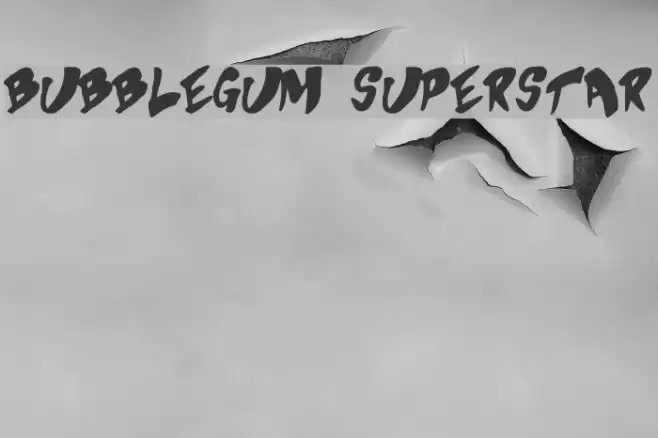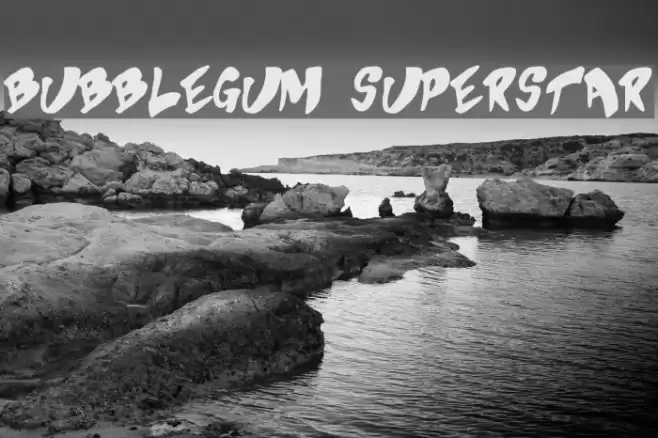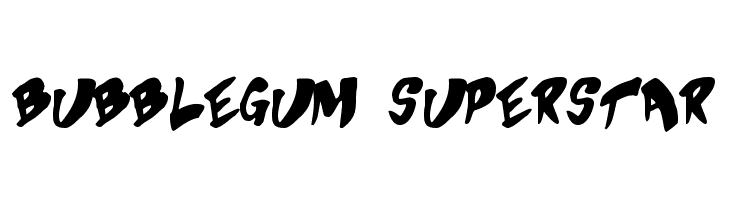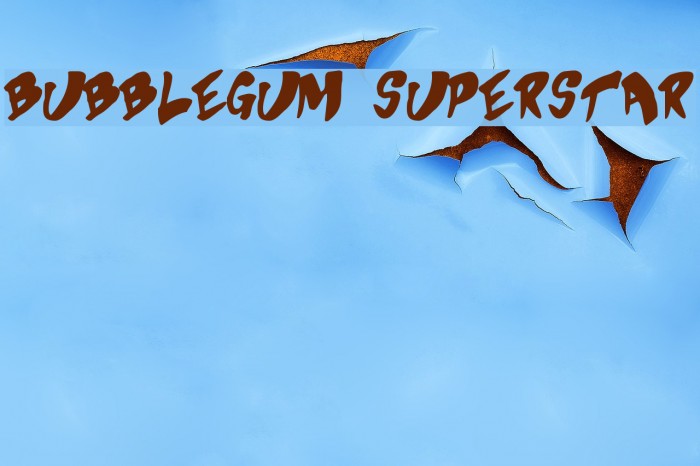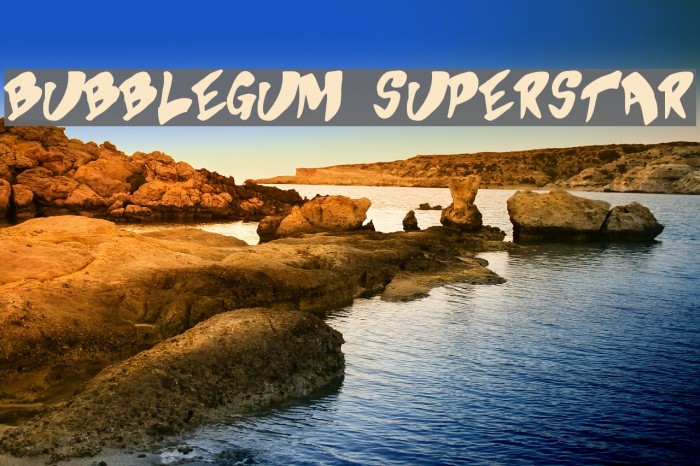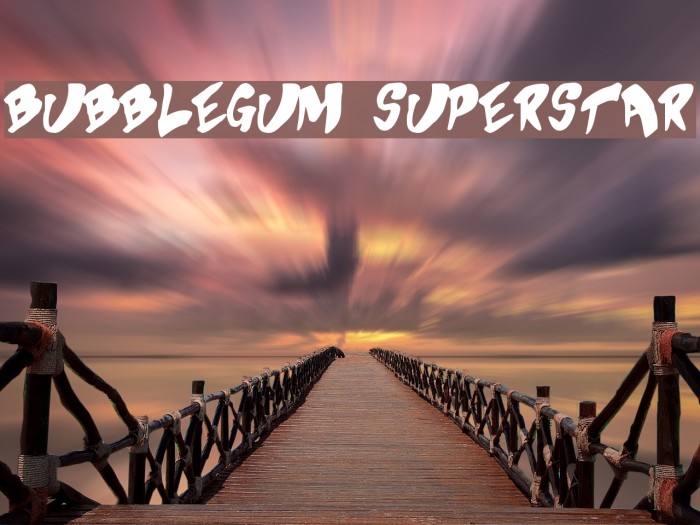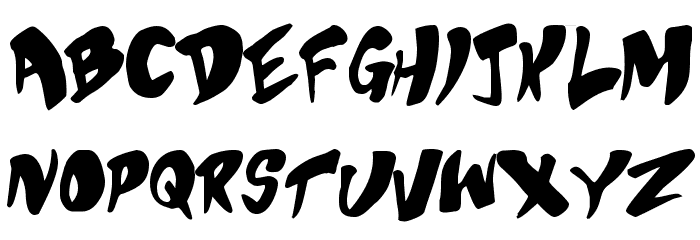
Bubblegum Superstar Font
Bubblegum Superstar Description
This font features a bold and dynamic style with a playful and energetic appearance. The letters are thick and slightly slanted, giving them a sense of movement and vibrancy. The strokes are uneven, adding a hand-drawn, casual feel that is both approachable and lively. The uppercase and lowercase letters maintain a consistent flow, while the overall design is reminiscent of graffiti or street art, making it ideal for projects that require a youthful and rebellious touch. The font's boldness ensures it stands out, making it suitable for eye-catching headlines and creative designs.
A bold, dynamic font with a playful, hand-drawn style from Decorative fonts.
- Proposed Projects: Ideal for posters, album covers, streetwear branding, and any project needing a youthful, energetic vibe.